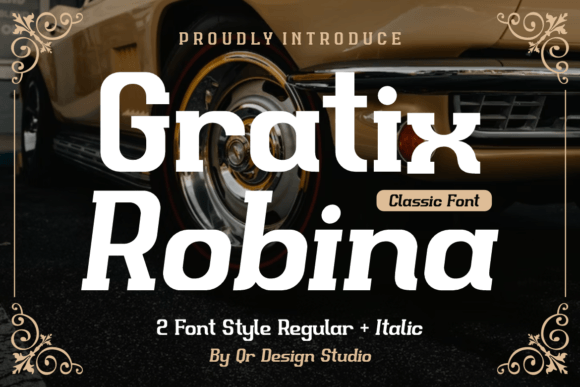
Gratix Robina Font: A Bold and Authentic Serif Font for Your Branding Needs
In the world of typography, fonts play a crucial role in conveying the tone and personality of a brand. With numerous font options available, finding the perfect one that aligns with your brand’s identity can be a daunting task. However, if you’re looking for a bold and authentic serif font that can elevate your branding projects, look no further than Gratix Robina Font. In this article, we’ll explore the features, benefits, and uses of Gratix Robina Font, and why it’s an excellent choice for your retro, vintage, poster, classic, logo, sport, and other branding projects.
What is Gratix Robina Font?
Gratix Robina Font is a bold and authentic serif font designed to add a touch of elegance and sophistication to your branding projects. The font features classic serif elements with a modern twist, making it suitable for a wide range of applications. Its unique design ensures that it stands out from the crowd, making it an excellent choice for brands looking to make a statement.
Key Features of Gratix Robina Font
- Bold and Authentic Design: Gratix Robina Font boasts a bold and authentic design that exudes confidence and sophistication.
- Serif Elements: The font features classic serif elements that add a touch of elegance and refinement to your branding projects.
- Modern Twist: The font’s modern twist ensures that it remains fresh and contemporary, making it suitable for a wide range of applications.
- Highly Versatile: Gratix Robina Font is highly versatile and can be used for various branding projects, including retro, vintage, poster, classic, logo, sport, and more.
Benefits of Using Gratix Robina Font
Using Gratix Robina Font for your branding projects offers numerous benefits. Some of the most significant advantages include:
- Establishes Brand Identity: The font’s bold and authentic design helps establish a strong brand identity that resonates with your target audience.
- Enhances Visual Appeal: Gratix Robina Font’s unique design elements enhance the visual appeal of your branding projects, making them more engaging and attention-grabbing.
- Versatile and Adaptable: The font’s versatility and adaptability make it suitable for various applications, from print to digital media.
- Easy to Read: Despite its bold design, Gratix Robina Font remains easy to read, ensuring that your message is conveyed clearly and effectively.
Uses of Gratix Robina Font
Gratix Robina Font is an excellent choice for various branding projects, including:
- Retro and Vintage Projects: The font’s classic serif elements and bold design make it an excellent choice for retro and vintage-themed projects.
- Poster Design: Gratix Robina Font’s bold and attention-grabbing design makes it perfect for poster design, ensuring that your message stands out.
- Classic and Luxury Brands: The font’s elegant and sophisticated design makes it suitable for classic and luxury brands looking to establish a strong brand identity.
- Logo Design: Gratix Robina Font’s unique design elements make it an excellent choice for logo design, helping to establish a strong brand presence.
- Sport and Fitness Brands: The font’s bold and energetic design makes it suitable for sport and fitness brands looking to convey a sense of dynamism and energy.
Tips for Using Gratix Robina Font Effectively
To get the most out of Gratix Robina Font, consider the following tips:
- Pair with Complementary Fonts: Pair Gratix Robina Font with complementary fonts to create a harmonious and visually appealing design.
- Use for Headings and Titles: Use Gratix Robina Font for headings and titles to add emphasis and create visual hierarchy.
- Experiment with Colors: Experiment with different colors to find the perfect combination that aligns with your brand’s identity.
- Keep it Simple: Keep your design simple and avoid clutter to ensure that Gratix Robina Font remains the focal point.
In conclusion, Gratix Robina Font is a bold and authentic serif font that offers a unique blend of classic and modern design elements. Its versatility, adaptability, and elegance make it an excellent choice for various branding projects, from retro and vintage to classic and luxury brands. By following the tips outlined in this article, you can effectively use Gratix Robina Font to establish a strong brand identity, enhance visual appeal, and convey your message with confidence and sophistication.